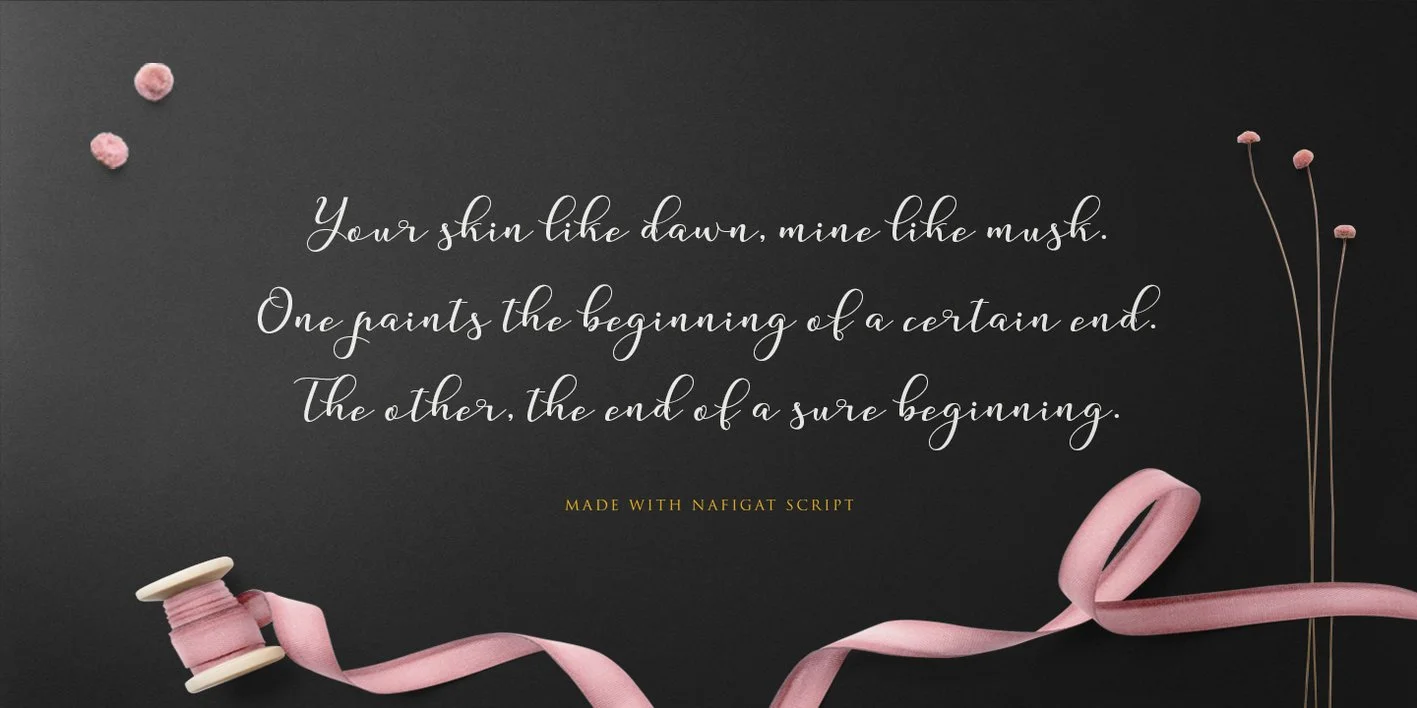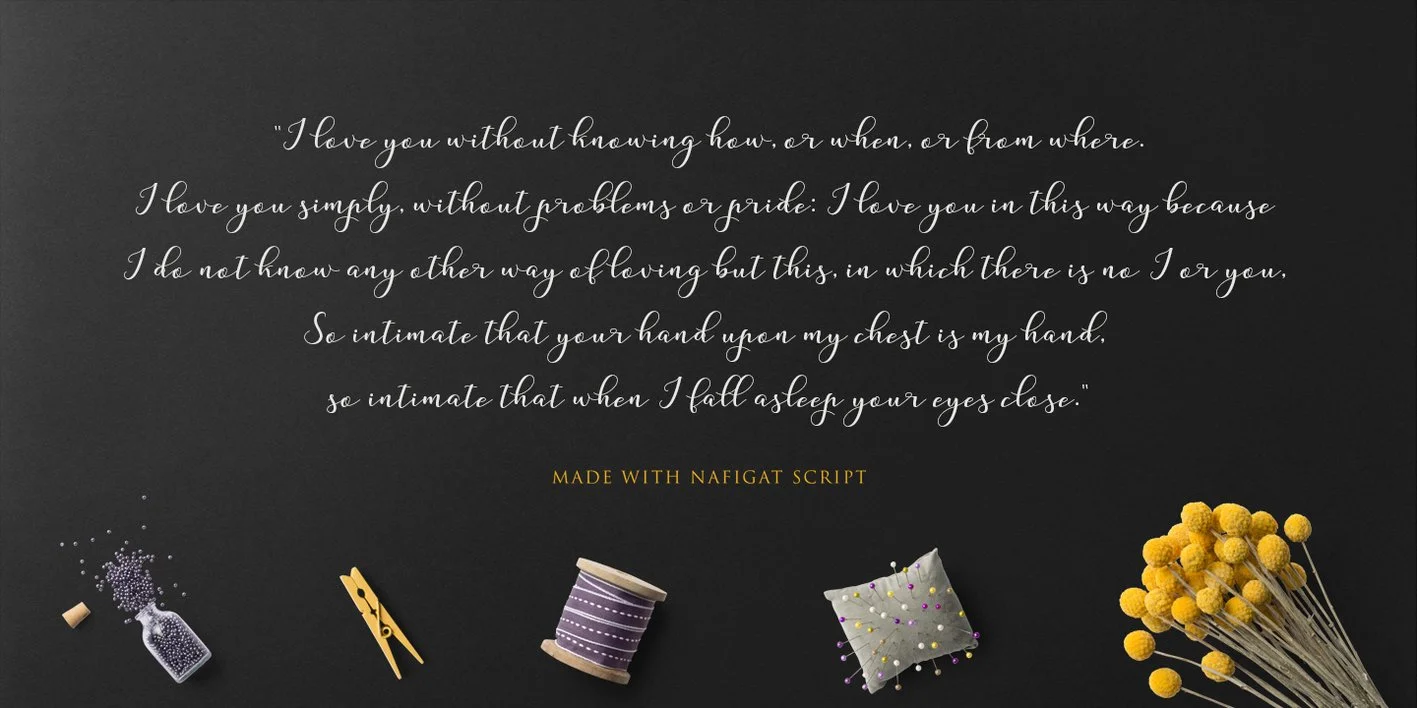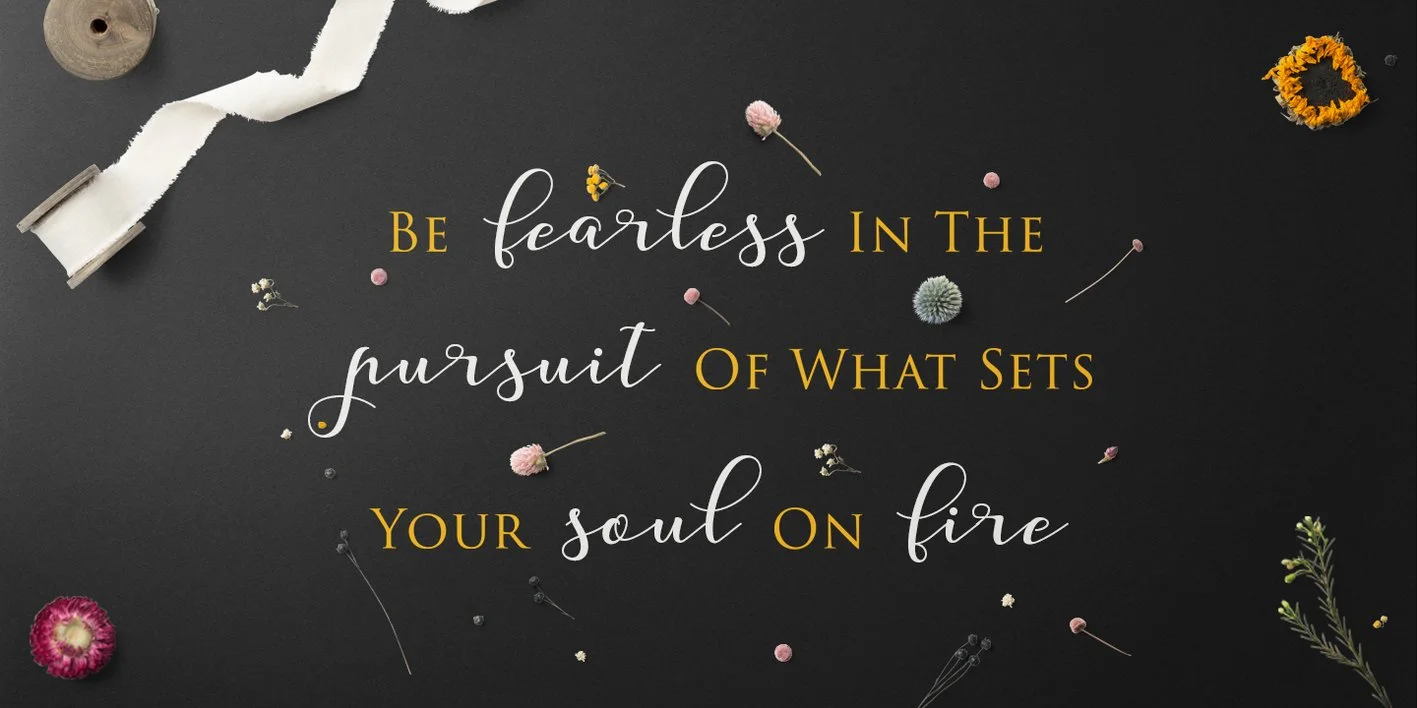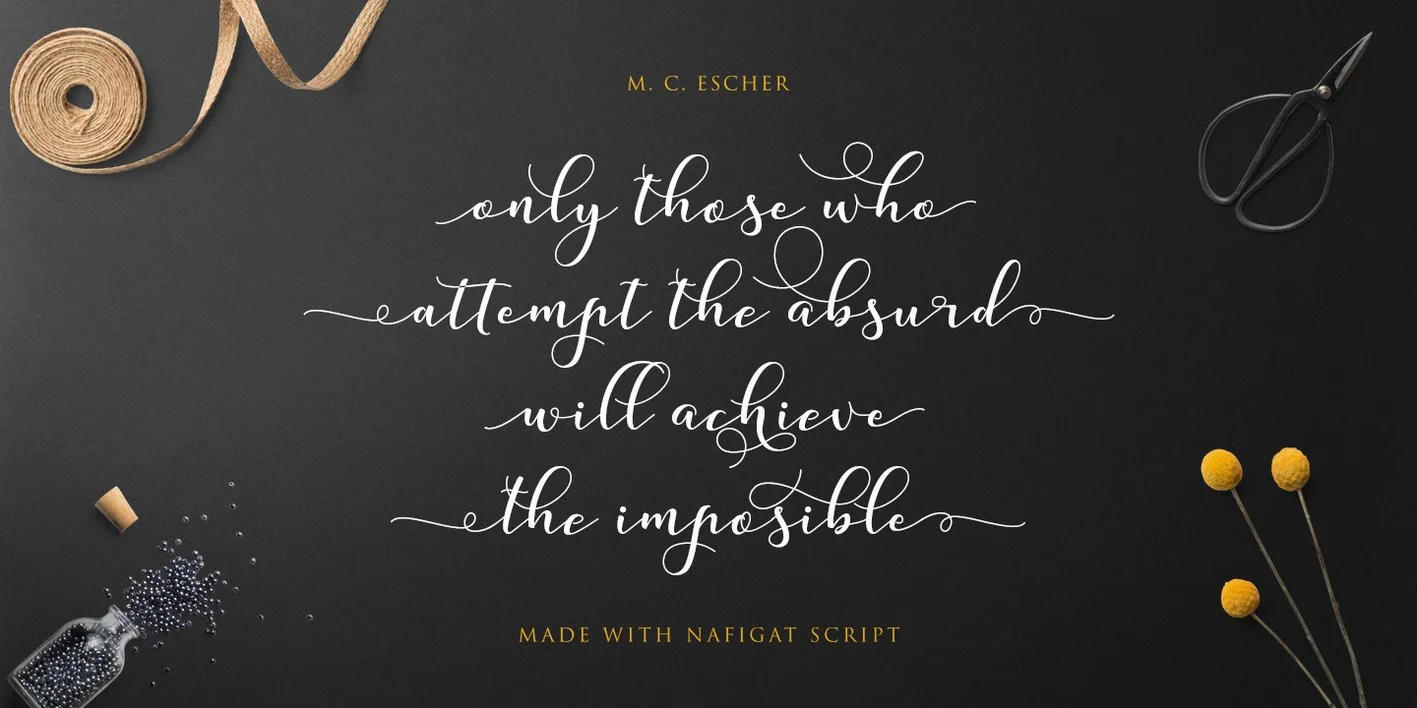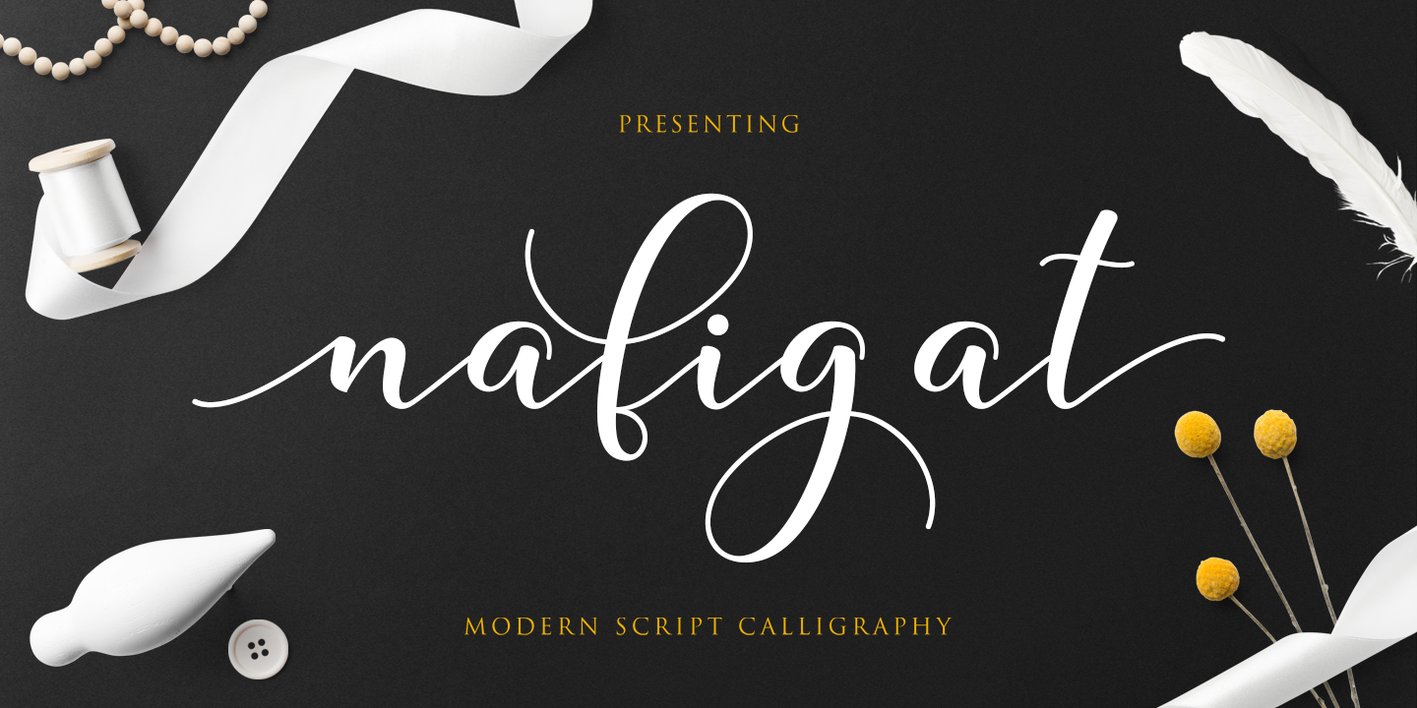
Nafigat Script Font
There is a particular satisfaction in finding a typeface that delivers strong typographic hierarchy support without compromise. Nafigat Script consistently provides it. The typeface brings an elegant, calligraphic sensibility to a broad range of creative disciplines, with controlled contrast that rewards close inspection that holds up whether the work is print-first or screen-first.
In practice, Nafigat Script proves particularly effective for signage systems, packaging design, feminine branding, advertising campaigns, fashion editorials. Designers reaching for it find that the type decisions feel resolved rather than laboured — a useful quality when client timelines are tight.
The range of applications extends to luxury stationery, annual reports, social media graphics, fragrance labels. That breadth is deliberate: the proportions and spacing were stress-tested across a wide range of mock briefs before the typeface was finalised.
Art directors commissioning type-led campaigns find Nafigat Script a reliable choice for projects that demand both personality and restraint. The design avoids the self-conscious quirkiness that dates quickly, settling instead for considered distinctiveness that holds up over time.